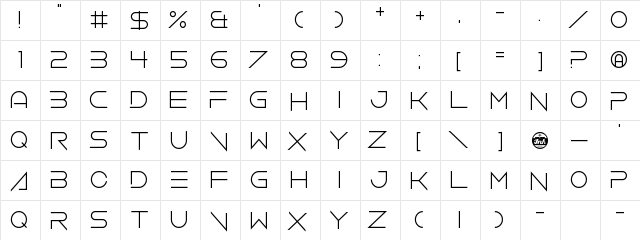
Vermin Vibes 4 Helium Regular
Design Context for Vermin Vibes 4 Helium Typeface
Vermin Vibes 4 Helium is a composed and adaptable typeface that performs quietly and consistently across a wide range of design contexts.